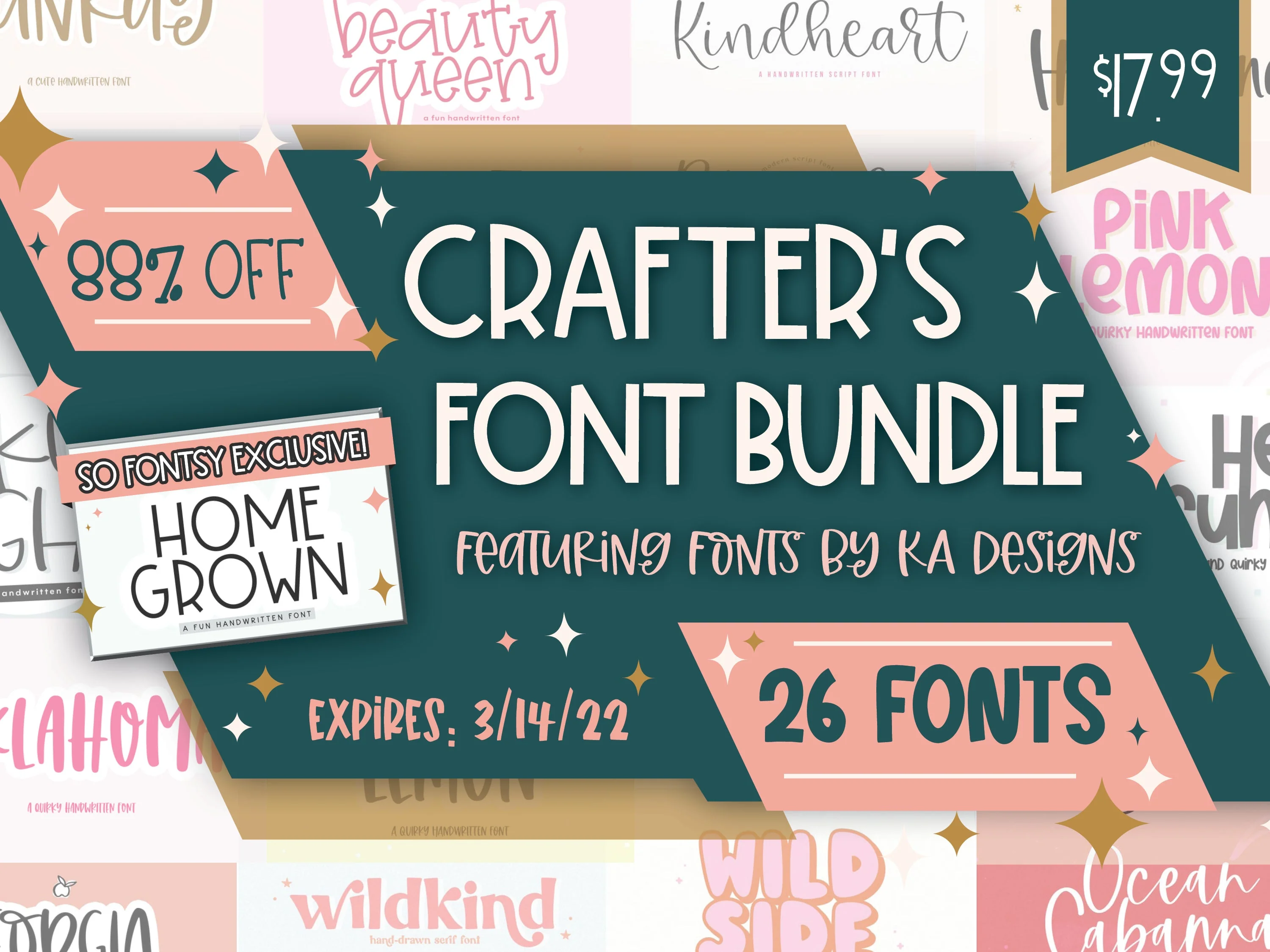
KA Designs Crafter's Font Bundle
The perfect font bundle DOES exist! An incredible combination of farmhouse fonts, script fonts, cursive fonts and even perfect for wedding fonts! This trendy font bundle includes a So Fontsy exclusive font and is 88% off for a limited time! As always our font bundles are for commercial use and work well as fonts for Cricut, Silhouette, Scan N Cut and in other graphic design programs including Adobe Illustrator and Photoshop.